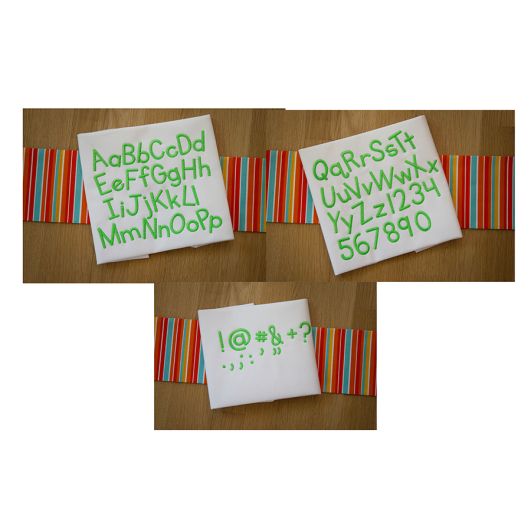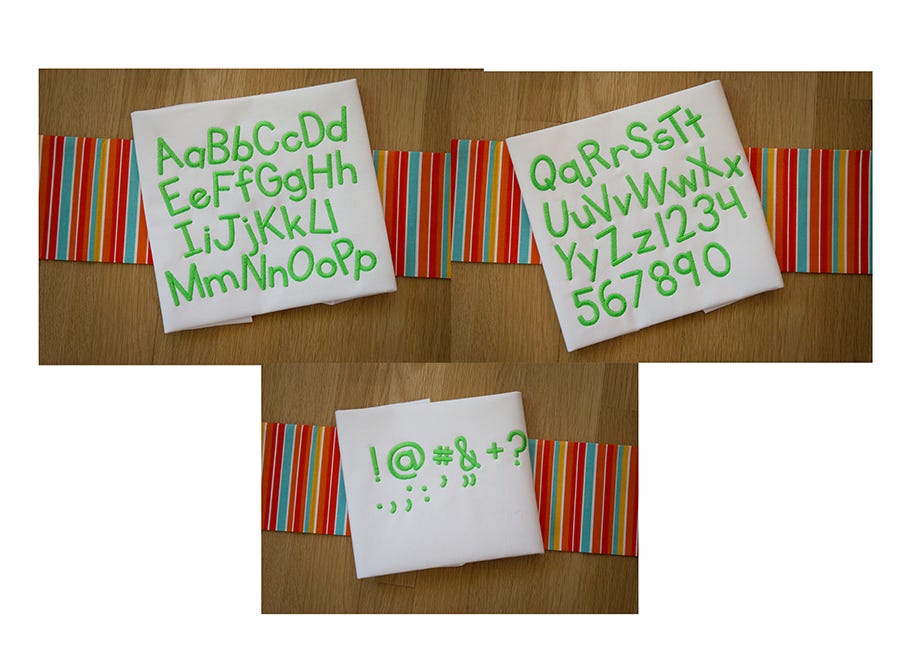
Primary Whimsy Satin Stitch Embroidery Font
An adorable and whimsical font perfect for boys and girls.   All of our font alphabets are 100% manually digitized to bring you maximum stitch quality.